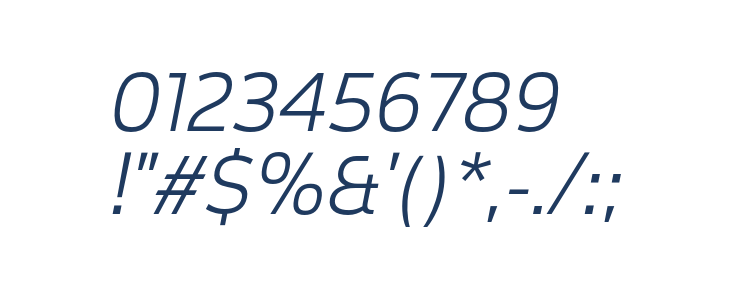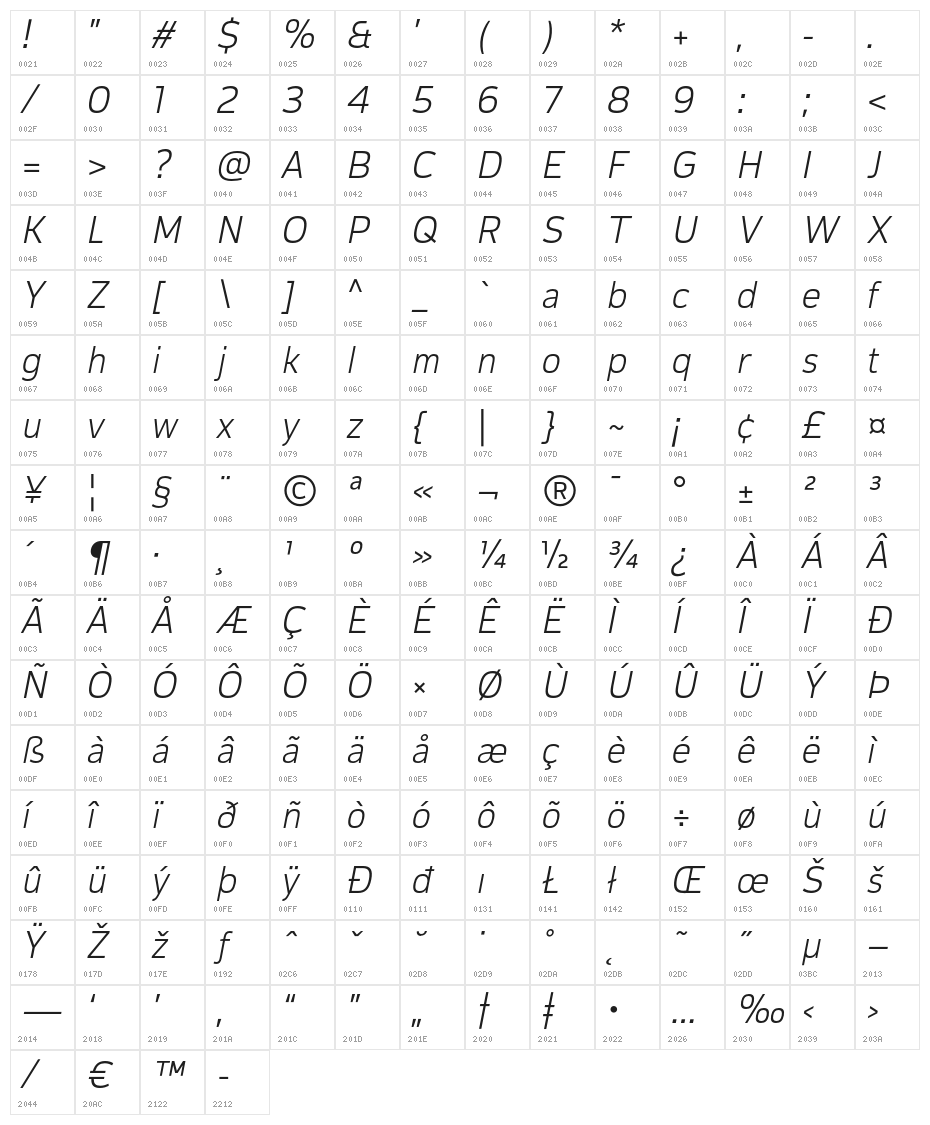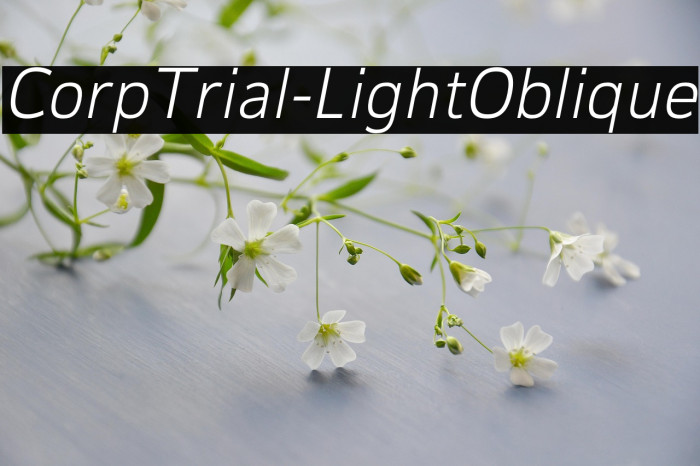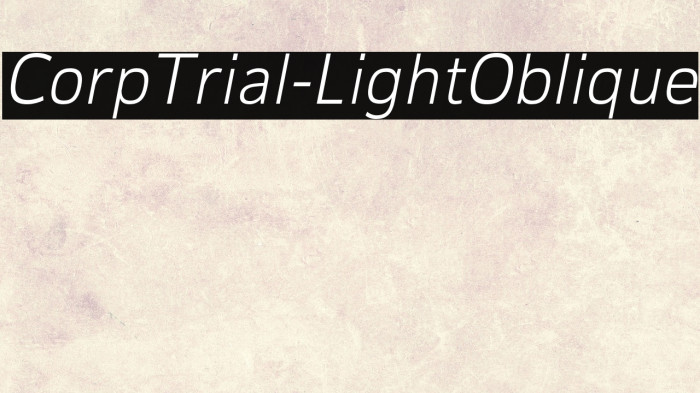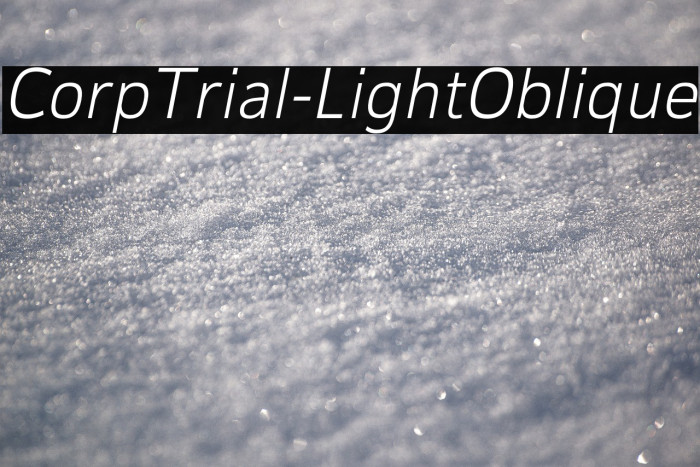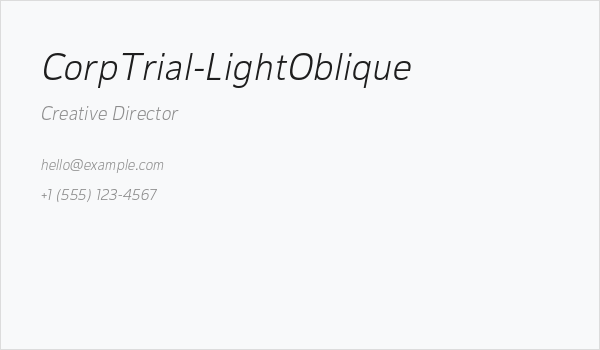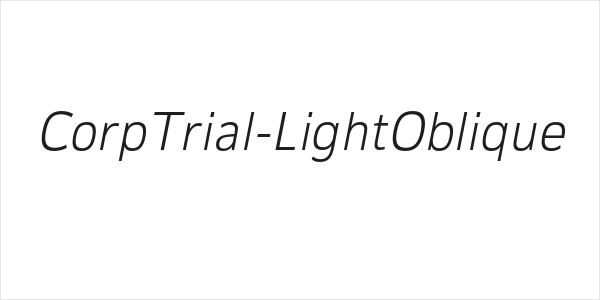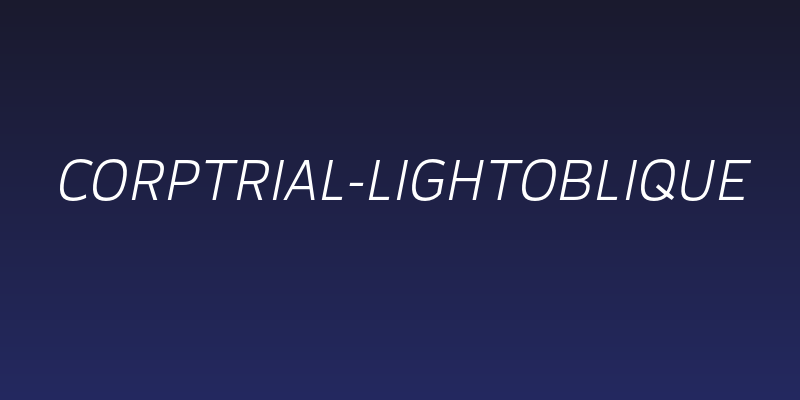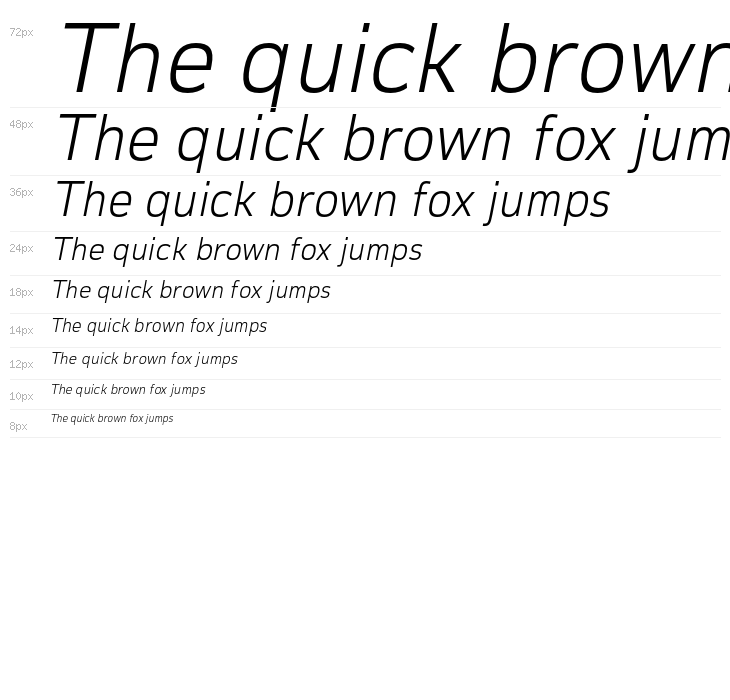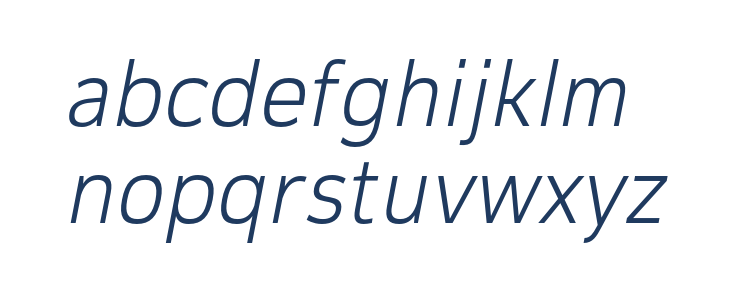
CorpTrial-LightOblique Font
CorpTrial-LightOblique Description
This font presents a sleek and modern aesthetic with its oblique style, offering a sense of motion and dynamism. The characters are clean and streamlined, with smooth curves and consistent stroke widths that contribute to its elegant appearance. The uppercase and lowercase letters maintain a harmonious balance, while the numerals and special characters are designed with clarity and precision. The overall look is minimalistic yet sophisticated, making it versatile for various design applications.
Proposed ProjectsIdeal for branding, advertising, and editorial design projects where a modern and sophisticated look is desired.